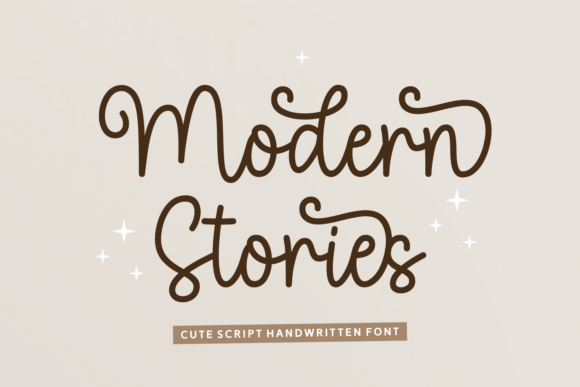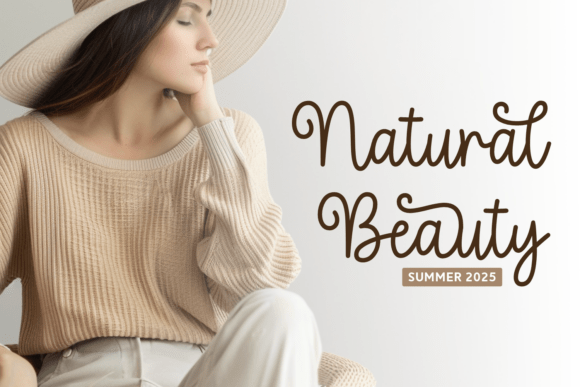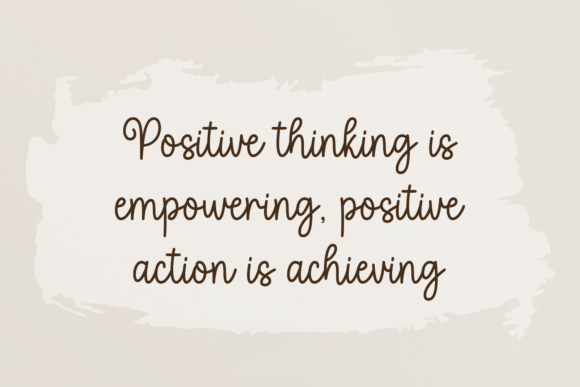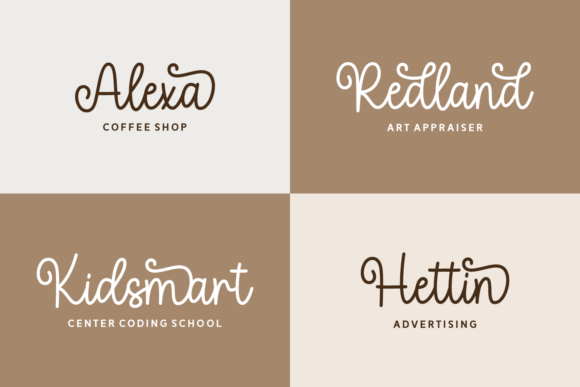
Modern Stories Font
About the Modern Stories Font
Unleash your creativity with Modern Stories Font, a versatile font perfect for a wide range of applications. Modern Stories is a cute and curly handwritten script font full of whimsy and warmth. With playful swashes, rounded strokes, and charming letterforms, this font is perfect for storytelling-themed projects, children’s book covers, quotes, DIY branding, and crafty designs. Modern Stories brings a magical, friendly vibe that’s sure to delight.
Its friendly, whimsical nature makes it ideal for projects requiring a touch of charm, such as children’s book covers, invitations, greeting cards, or logos for businesses focused on handmade crafts or similar fields. However, its highly decorative style is less suitable for body text or UI elements where legibility is paramount; the playful swashes can hinder readability in longer passages.
Modern Stories pairs well with clean sans-serif fonts like Lato or Open Sans for a balanced contrast, providing structure and readability alongside its playful script. Alternatively, a simple serif font like Merriweather can add a touch of classic elegance, tempering the font’s youthful energy. Avoid pairing it with other highly decorative or heavily stylized fonts to prevent visual clutter.
The overall personality of Modern Stories is undeniably cheerful and approachable. Its rounded forms and playful swashes convey a sense of warmth and approachability, making it perfect for brands that want to project a friendly and approachable image.